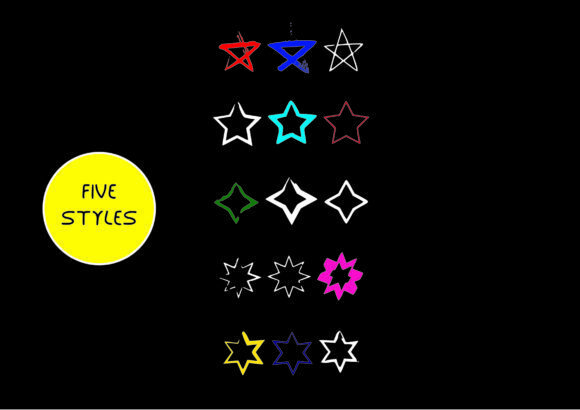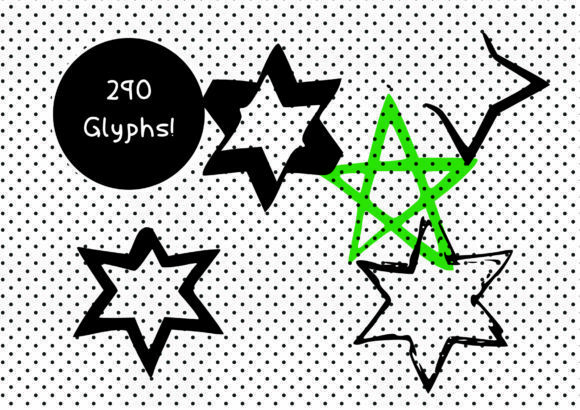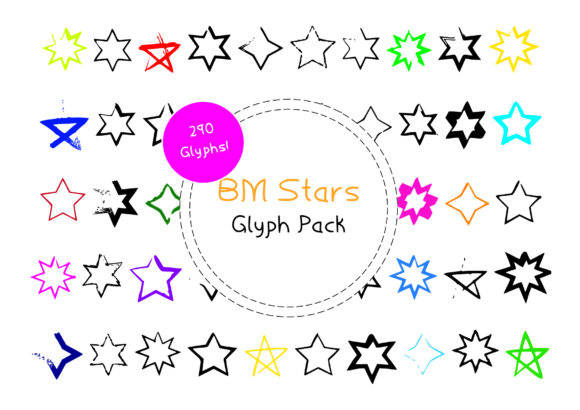
About BM Graphics – Stars Font
BM Graphics – Stars is an extraordinary dingbats font that offers a wide range of starry glyphs, perfect for adding a celestial touch to your design projects. With its collection of 290 unique star symbols, this font provides endless possibilities to create captivating designs. Here are some ways you can make the most of BM Graphics – Stars:
1. Decorative Elements: Use the star glyphs as decorative elements to enhance your designs. They can be used to create borders, frames, or patterns that add a touch of sparkle and elegance to your artwork.
2. Text Emphasis: Incorporate star glyphs to highlight specific words or phrases in your typography. This can be particularly effective for titles, headings, or important information that you want to draw attention to.
3. Cosmic Themes: If you’re working on projects related to astronomy, space exploration, or science fiction, BM Graphics – Stars is the perfect font to convey the cosmic theme. Use the star glyphs to represent stars, galaxies, or celestial objects, creating a visually stunning and immersive experience for your audience.
4. Event Promotion: Whether it’s a special event, a party, or a product launch, BM Graphics – Stars can be used to create eye-catching promotional materials. Combine different star glyphs to design captivating posters, flyers, or social media graphics that stand out from the crowd.
5. Patterns and Backgrounds: With 290 star glyphs at your disposal, you can create intricate patterns and backgrounds that add depth and visual interest to your designs. Experiment with different combinations and arrangements to achieve the desired effect.
6. Web Design: Incorporate star glyphs into your website design to add a touch of magic and enchantment. Use them as bullet points, icons, or decorative elements to create a cohesive visual experience throughout your site.
Remember to consider the context and purpose of your design when using BM Graphics – Stars. The font’s versatility and wide range of glyphs provide ample opportunities for creativity and customization. Let your imagination soar and create designs that shine bright with the help of BM Graphics – Stars.